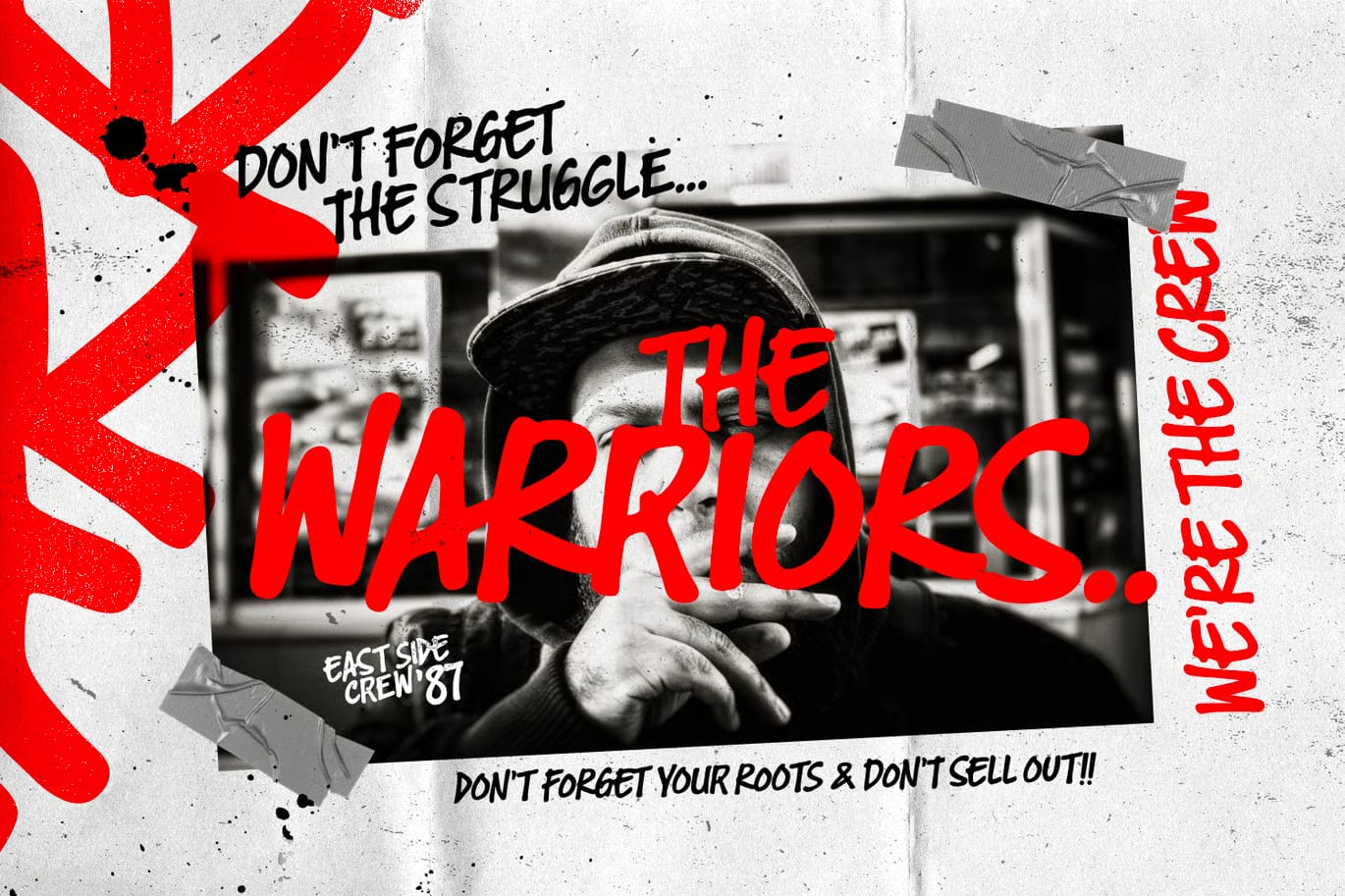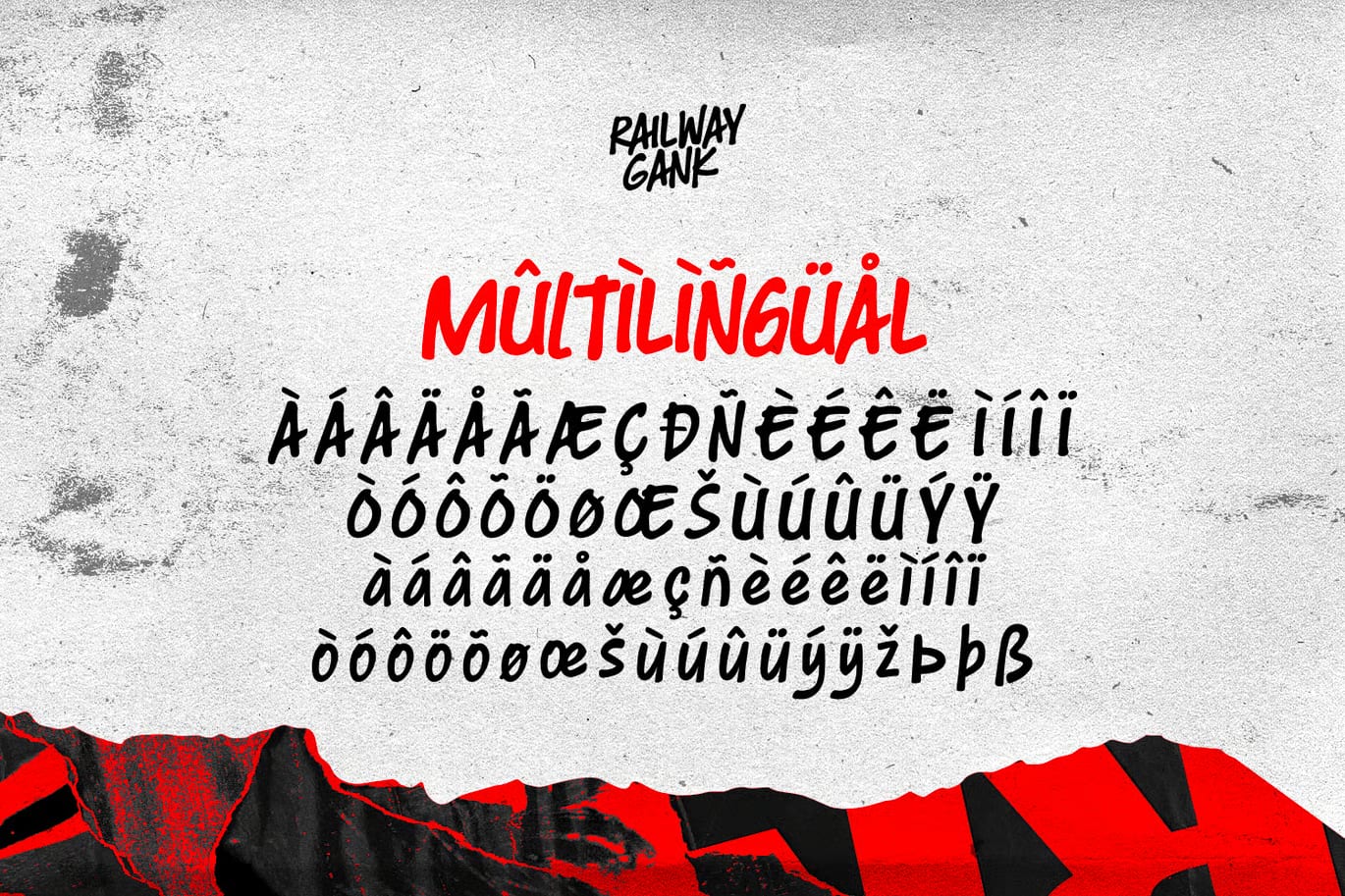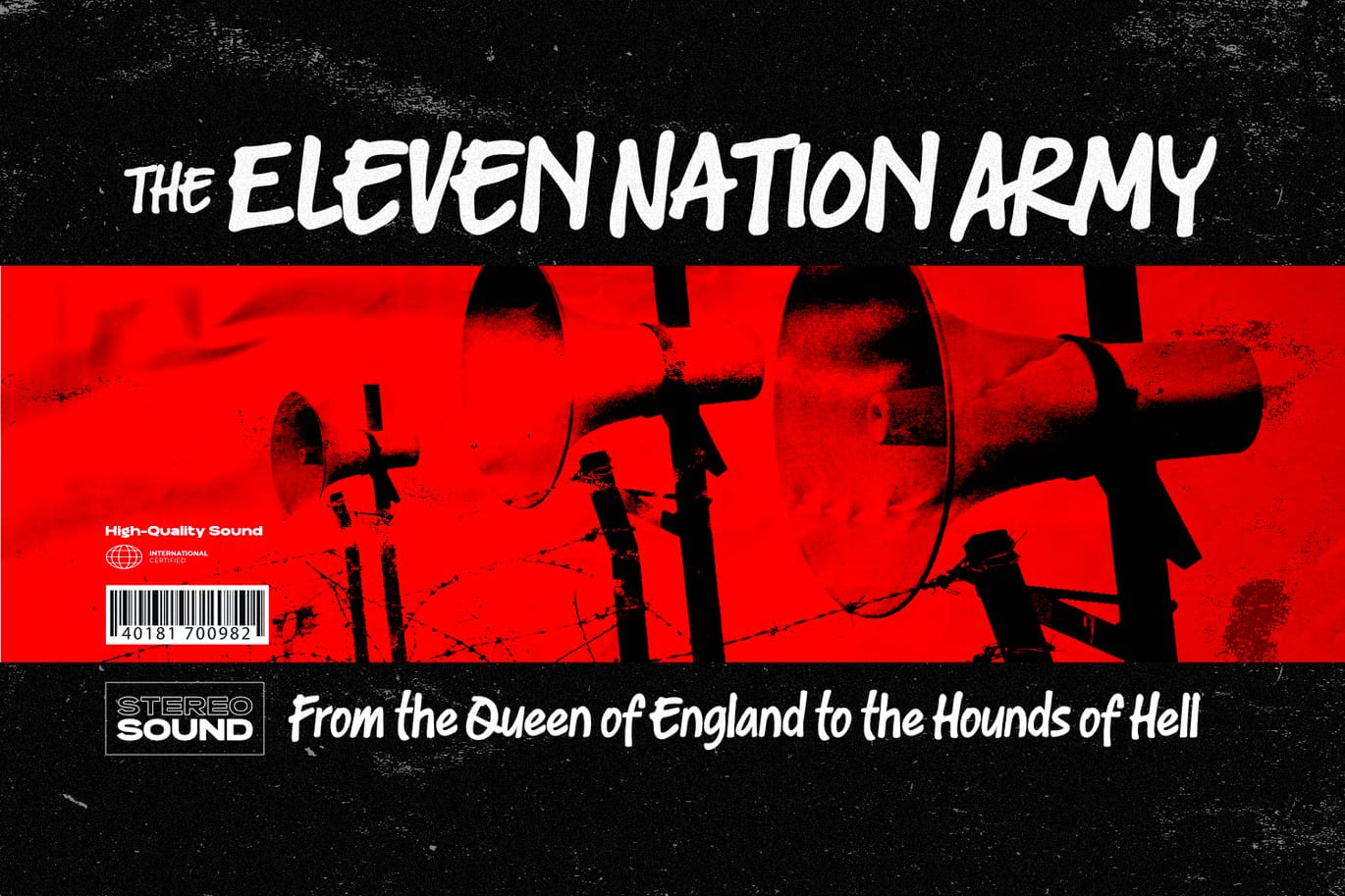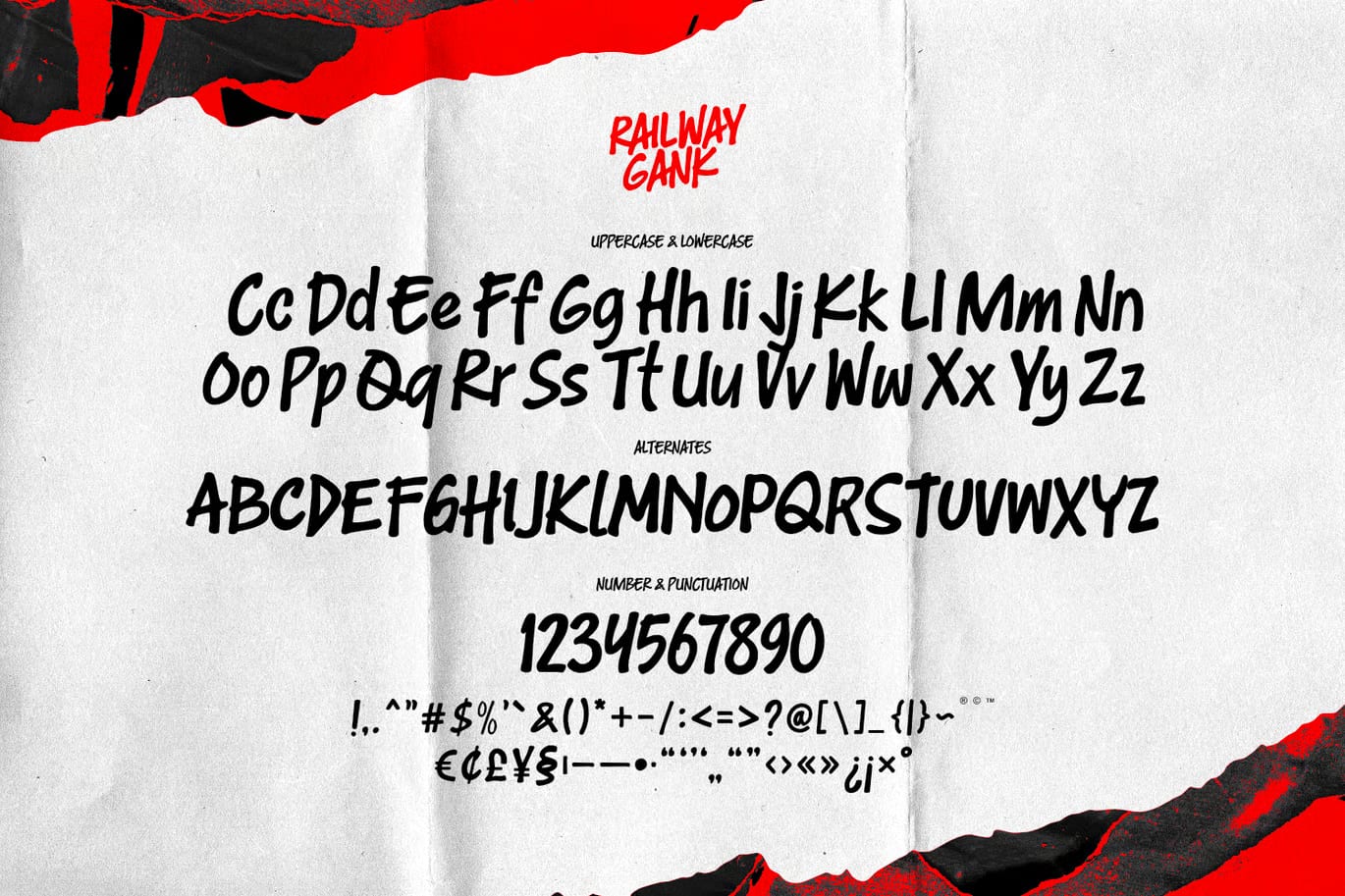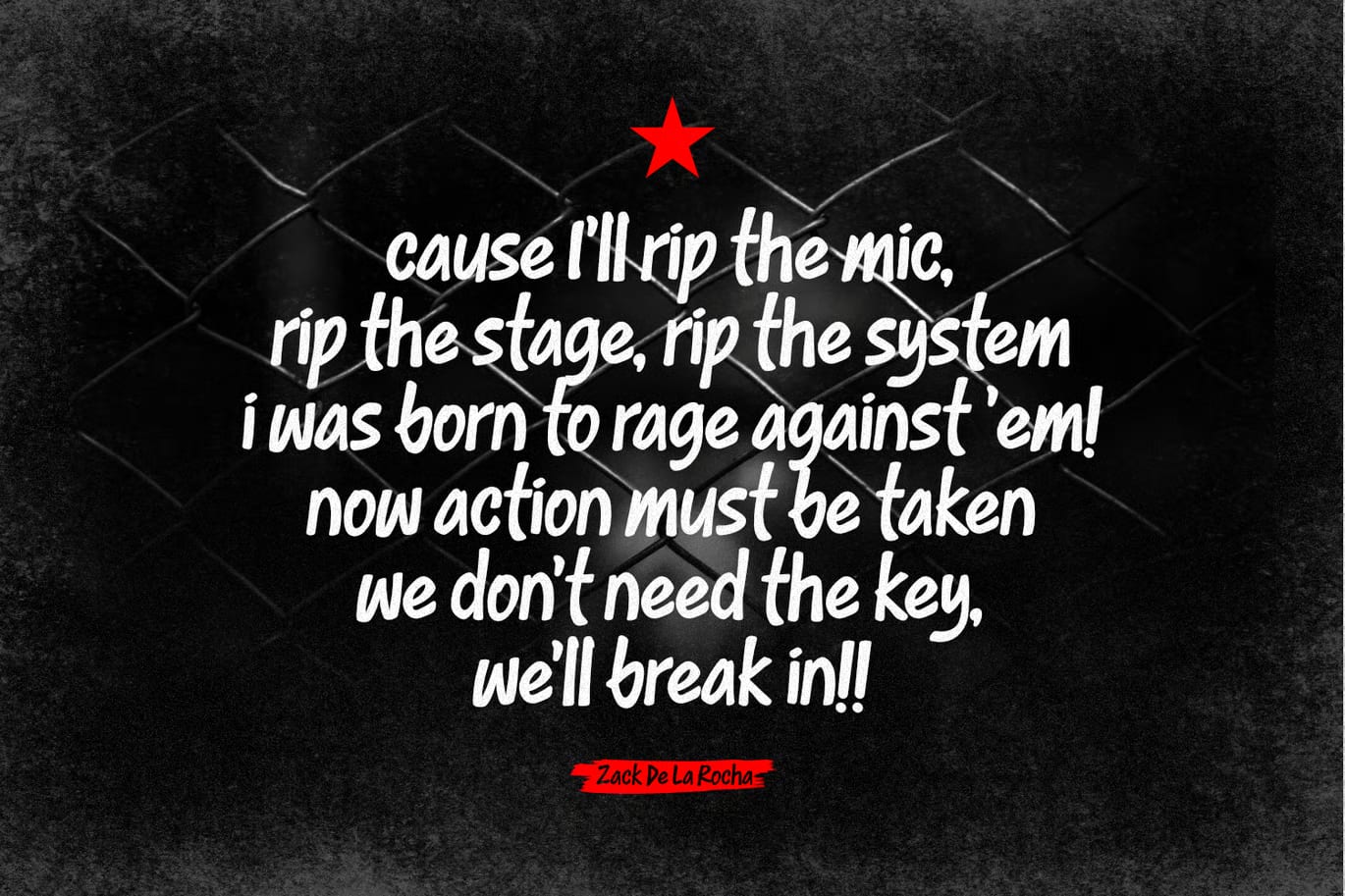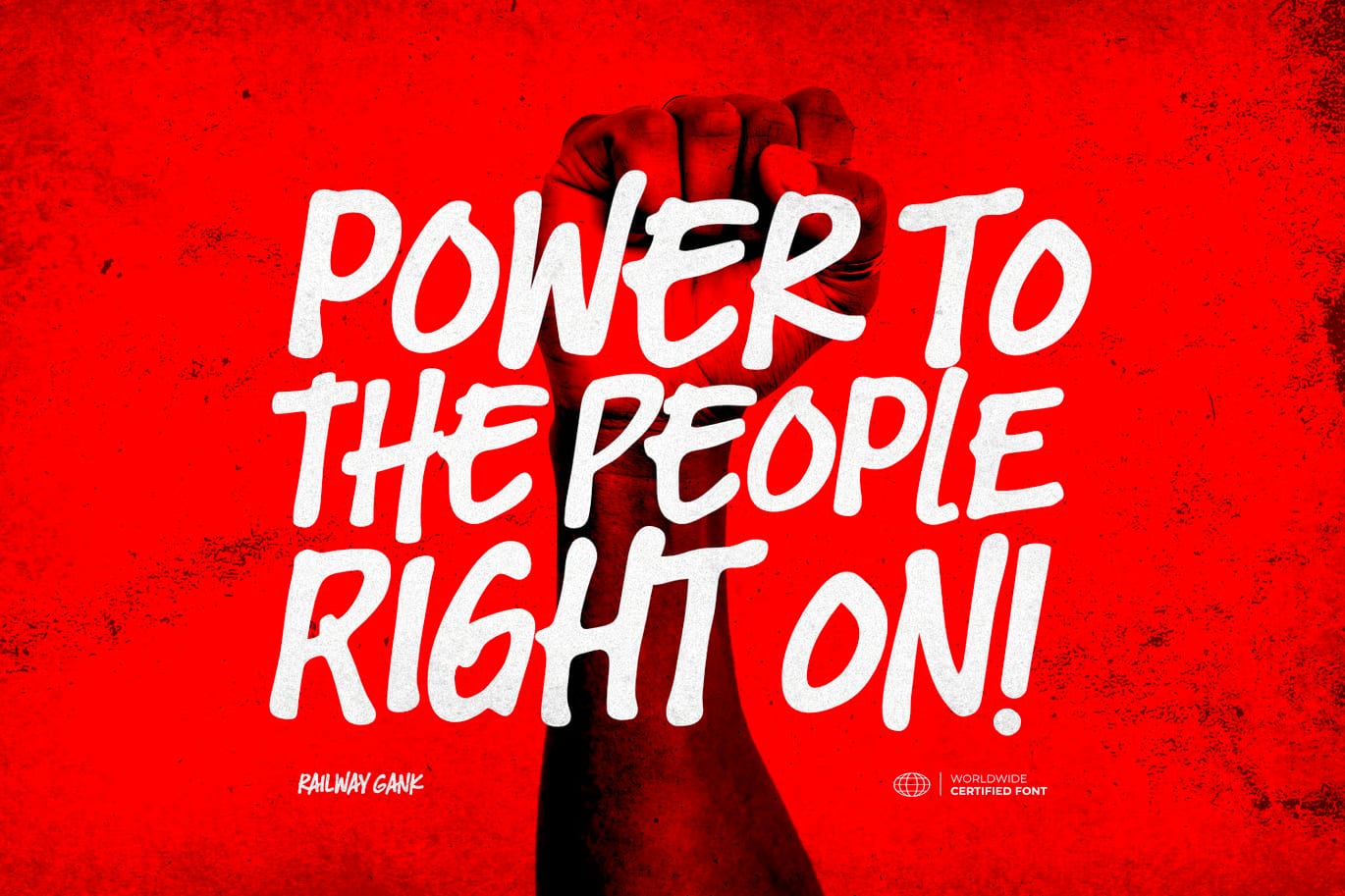
This street marker font brings together rough brush lettering and the bold feel of urban graffiti. It has a handwritten look that feels casual, gritty, and full of character, which makes it a good fit for designs that need a raw, eye-catching style.
The uppercase letters have a stronger and more confident look, while the lowercase letters feel a little more relaxed and easygoing. That mix gives the font a nice balance, so it works well in different kinds of layouts without losing its street-inspired personality.
You can use it for poster designs, book covers, movie titles, streetwear graphics, magazine layouts, quotes, or text placed over photos and backgrounds. It also includes alternates and multilingual support, which adds more flexibility when you want to create a more natural handwritten feel.